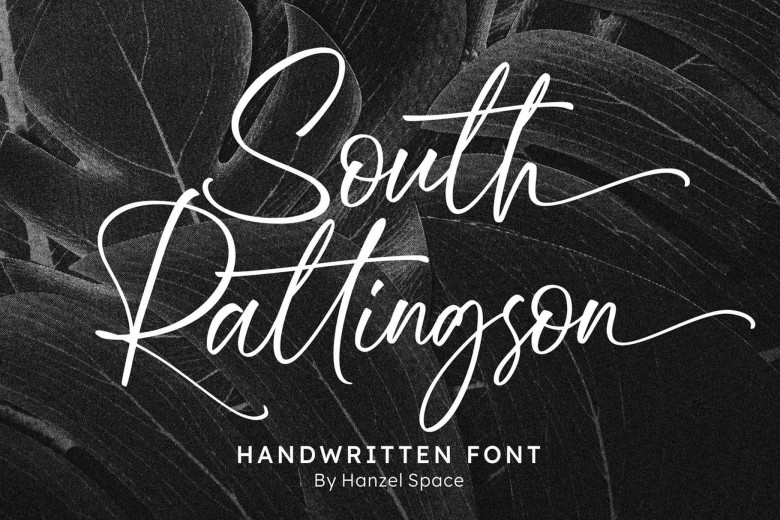
South Rattingson Font
Introducing the newest product “South Rattingson” this font is made by handwriting script to create professional and natural look, as well as curves that have characters in each letter.
This fabulous font is perfect for branding projects, homeware designs, product packaging, or just for text on an image.
South Rattingson Handwritten Font